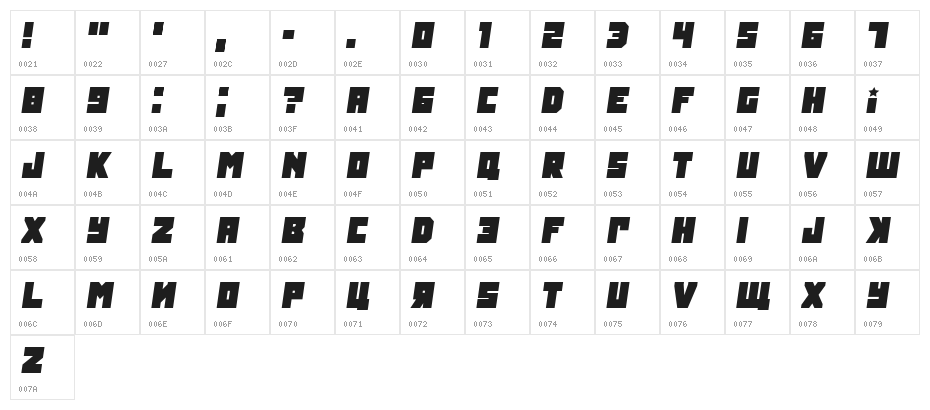
Tokarev Italic Font
Tokarev Italic Description
This font features a bold, angular design with a strong geometric influence. The characters are blocky and robust, with sharp edges and a slightly italicized slant that adds a dynamic feel. The uppercase letters are particularly striking, with a consistent height and width that creates a uniform appearance. The numbers and special characters maintain the same bold style, ensuring cohesion across all elements. The overall look is modern and assertive, making it suitable for attention-grabbing designs.